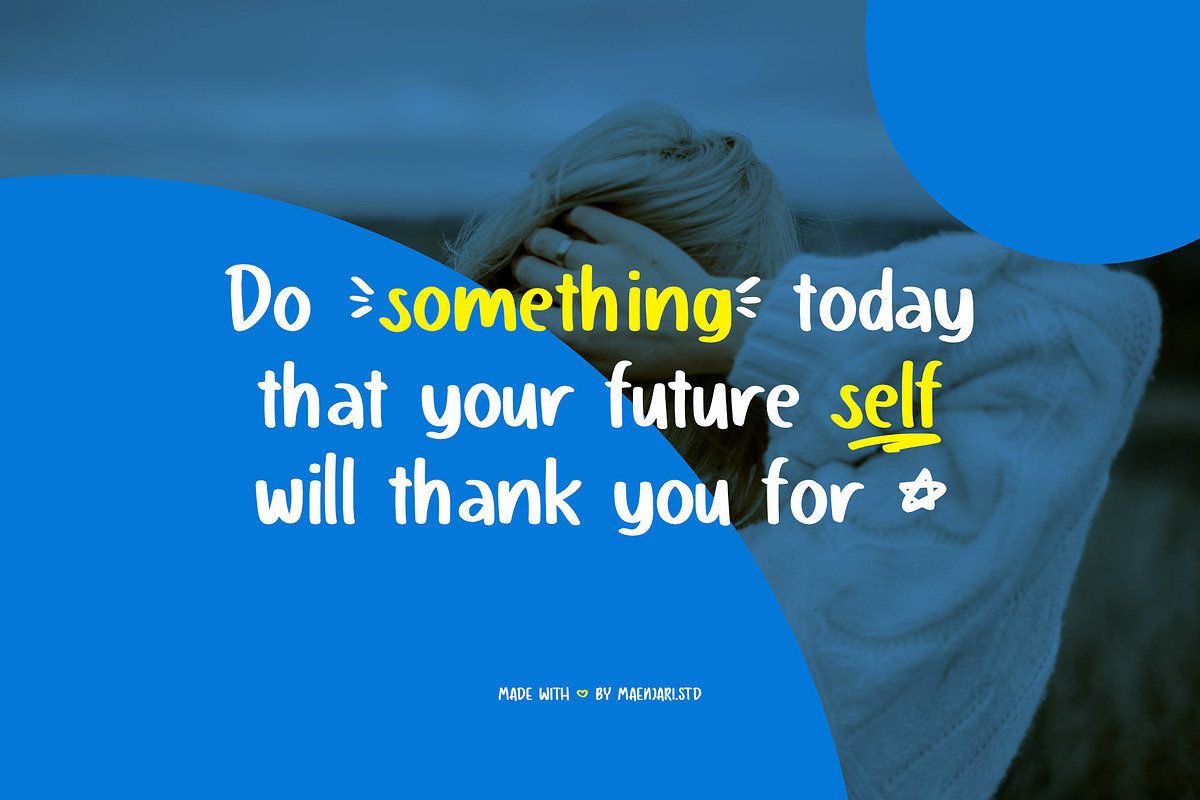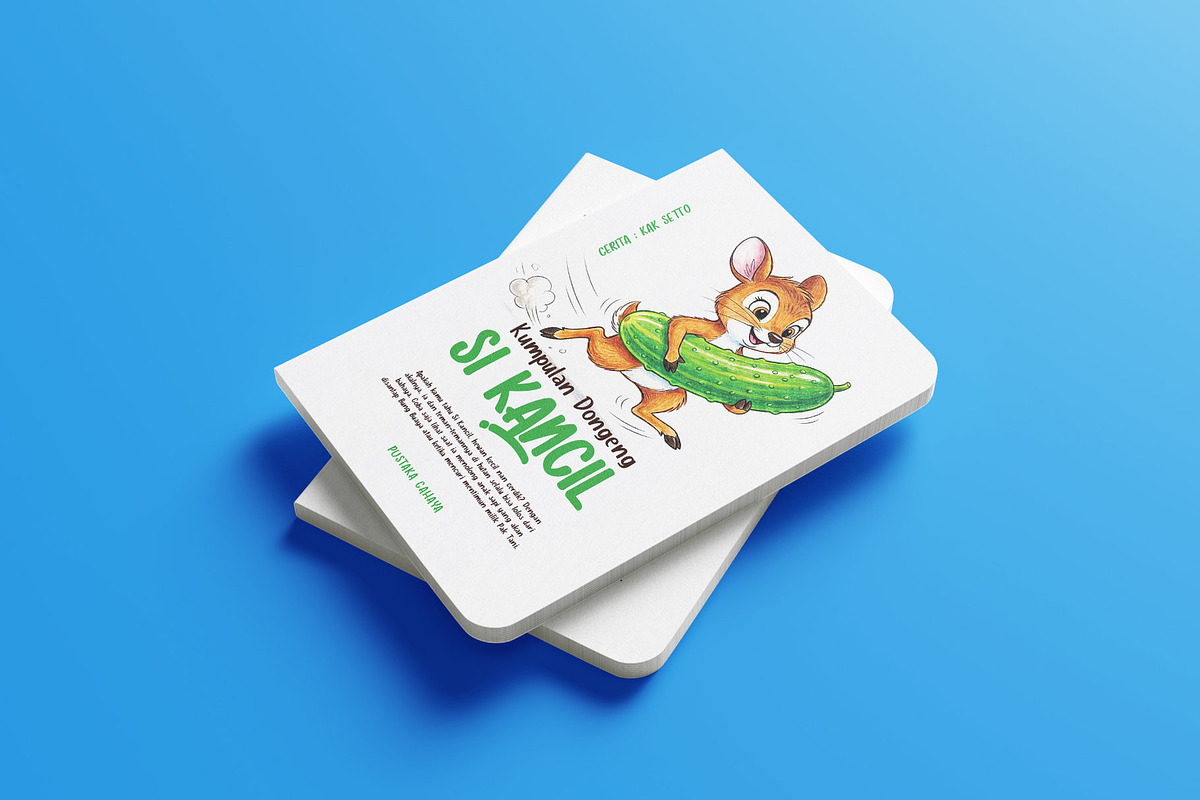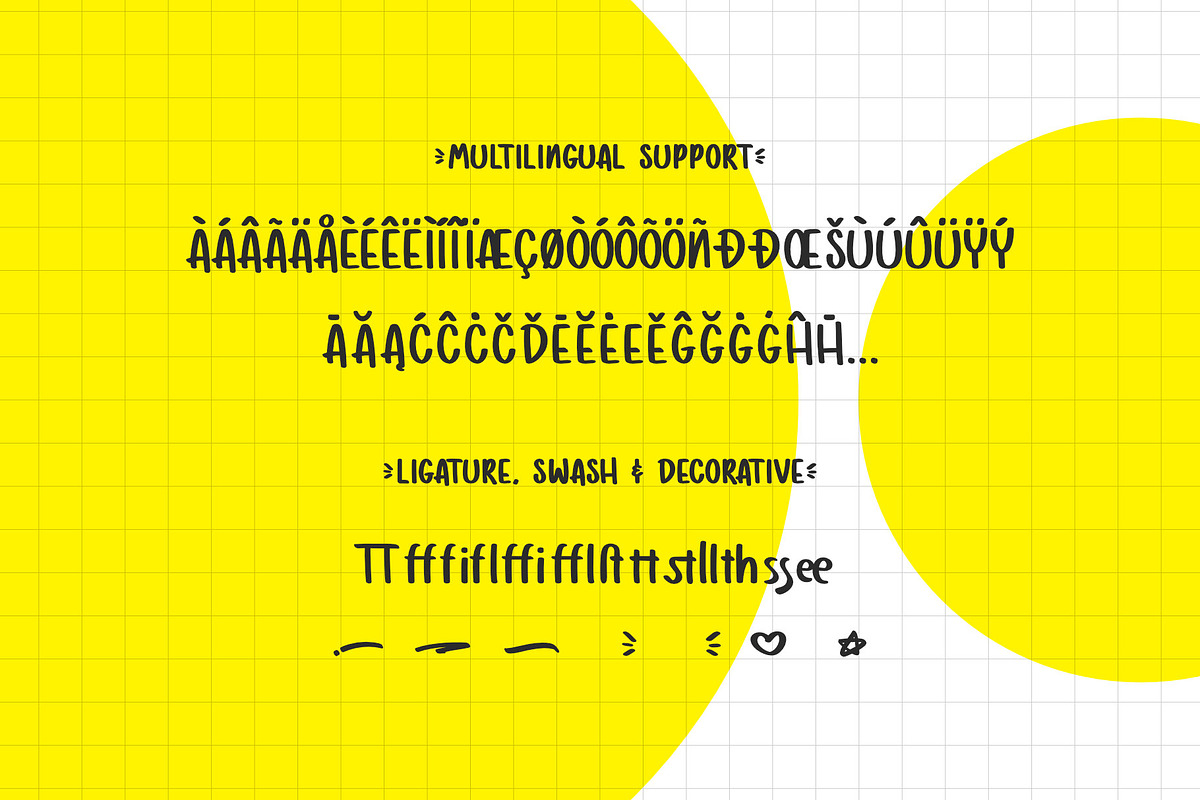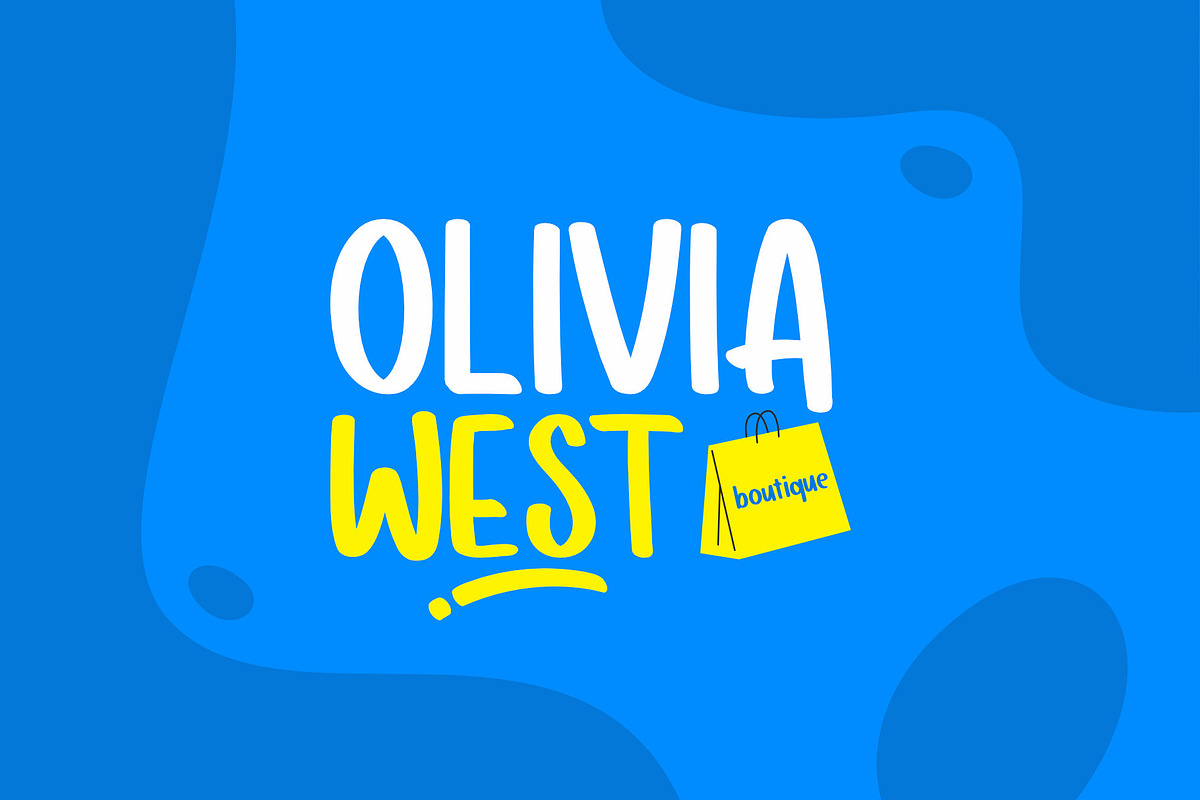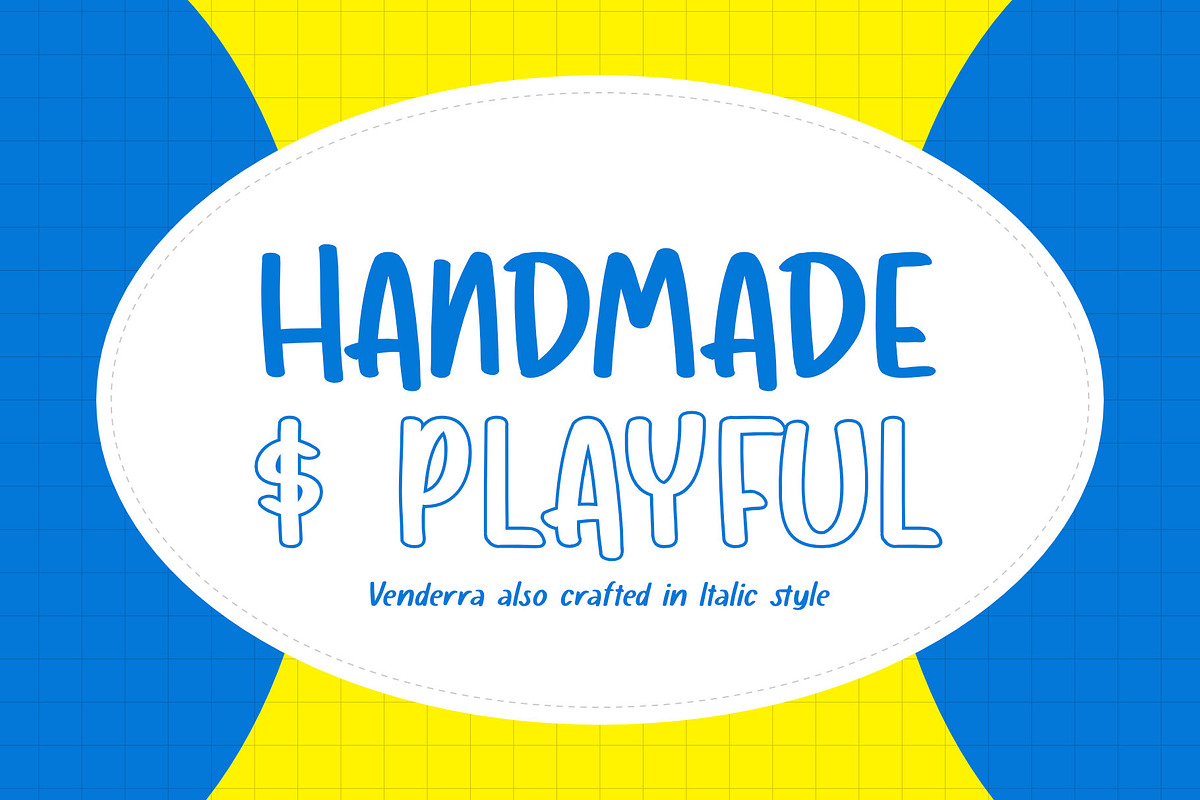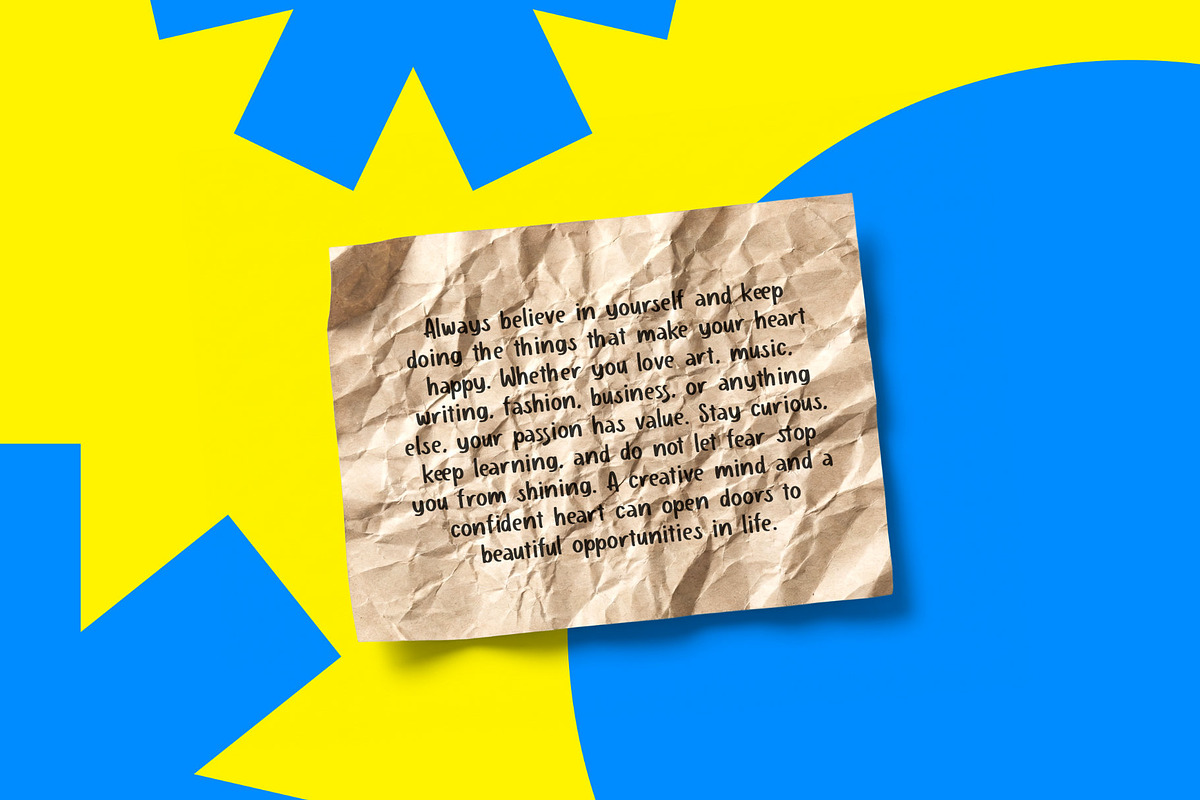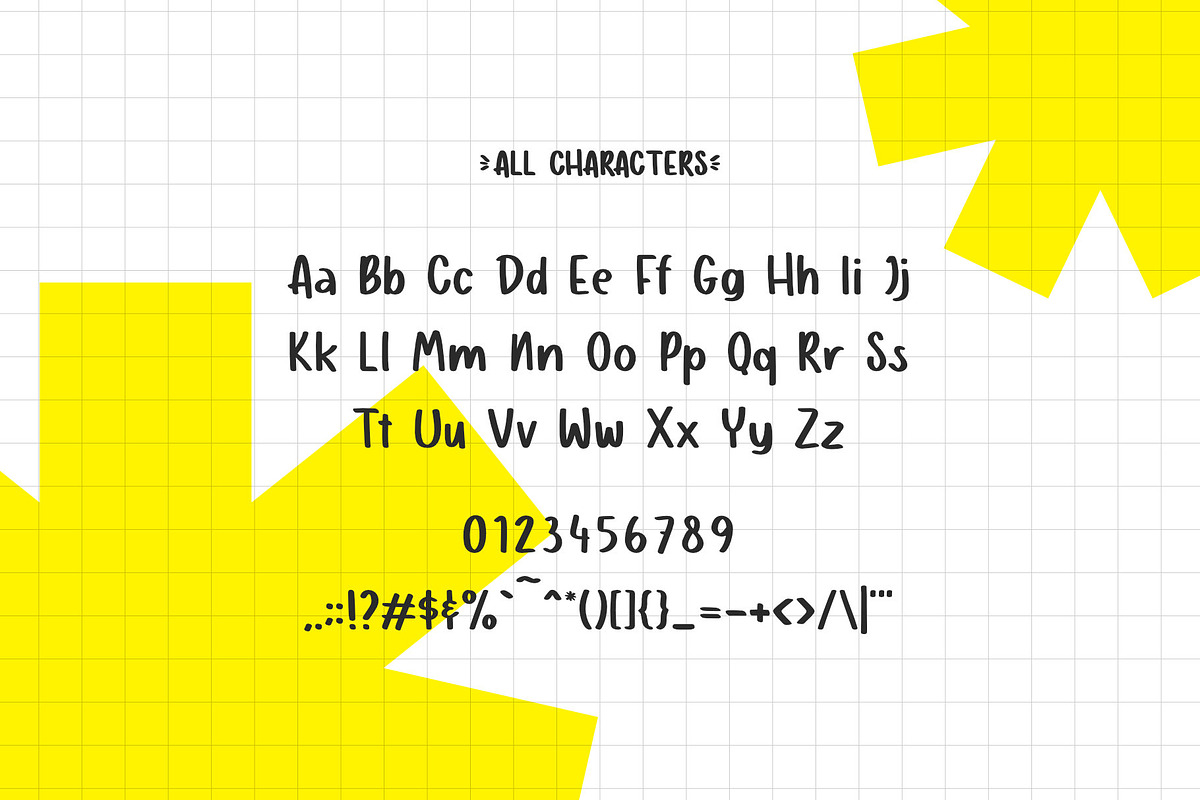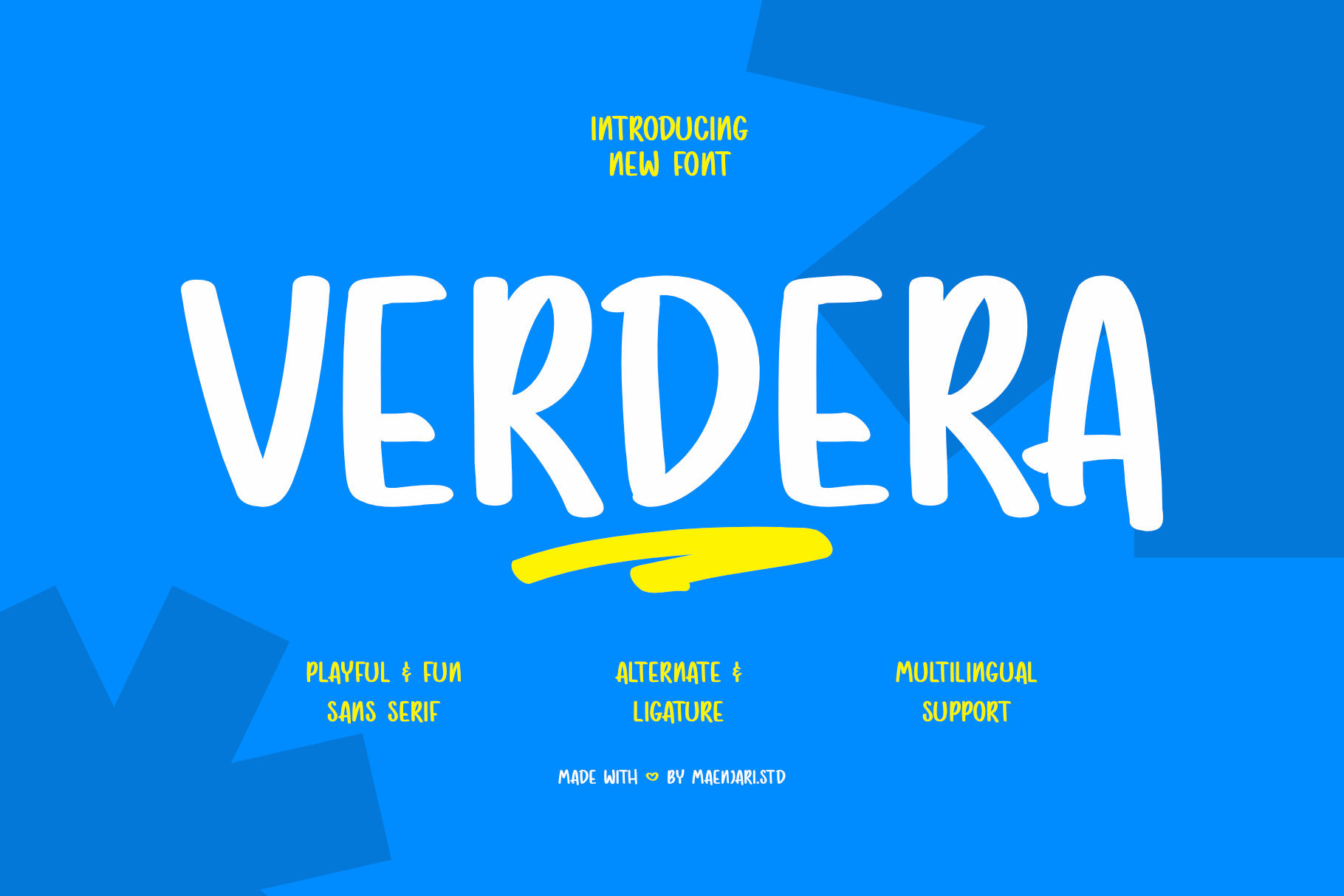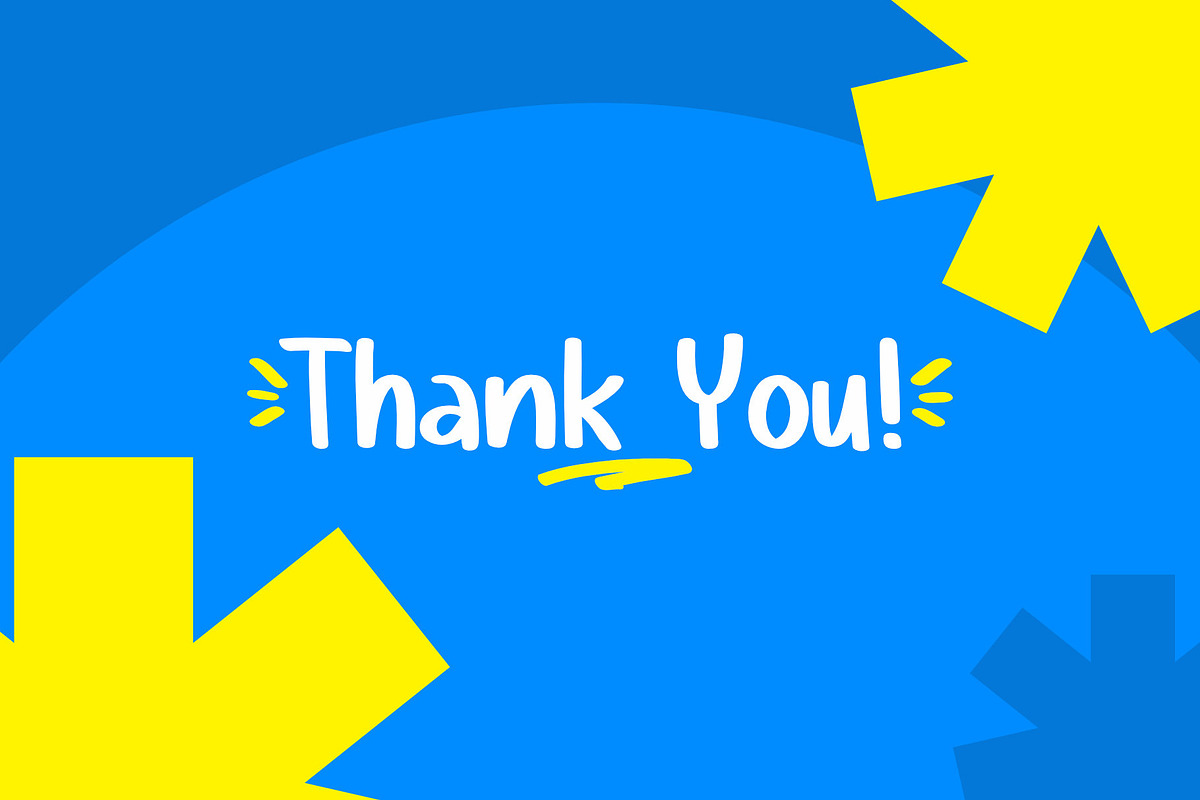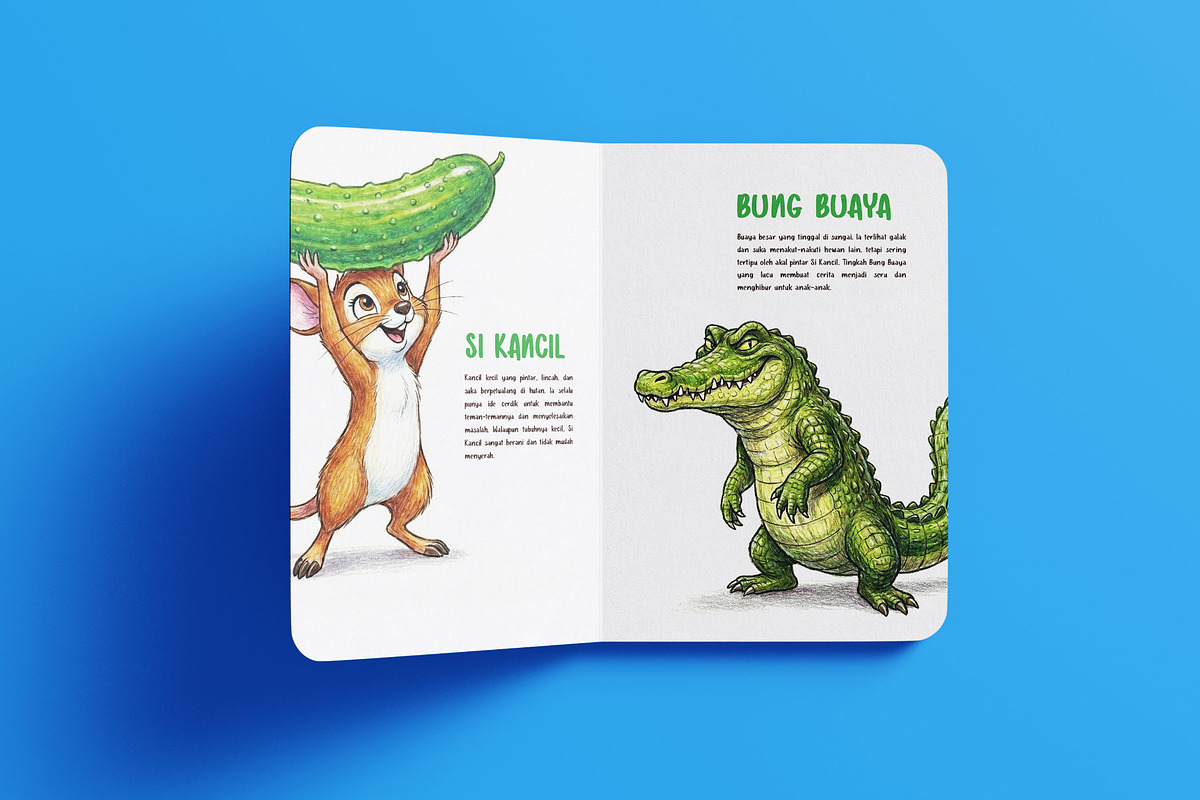
Verdera - Playful Handwritten Font
Meet Verdera – A Playful & Friendly Sans Serif Font!
Bring a splash of joy and handmade charm to your next creative project with Verdera, a delightfully whimsical handwritten sans serif font designed by maenjari.std. Crafted with organic lines and a cheerful personality, Verdera perfectly captures a fun, casual aesthetic that stands out.
Whether you are designing captivating children’s storybooks, eye-catching boutique branding, playful school posters, or social media quotes, this versatile font adds an instant touch of warmth and friendliness. It comes packed with creative ligatures, decorative swashes, and an italic style option to elevate your layouts effortlessly.
Full Uppercase & Lowercase Character Set
Numbers, Punctuation & Symbols
Creative Ligatures, Swashes & Decorative Ornaments
Extensive Multilingual Support
Bonus: Free Italic Style Included!
Perfect for crafters, graphic designers, and teachers. Give your designs a happy, authentic handmade look today with Verdera!